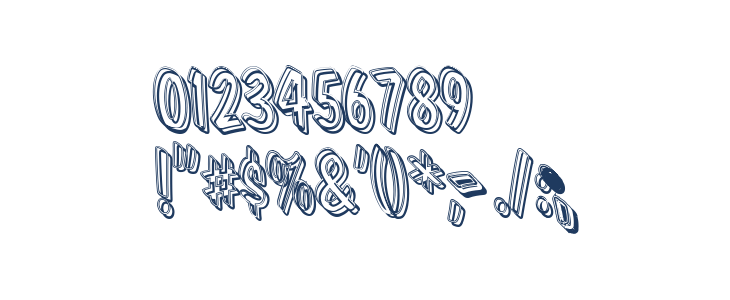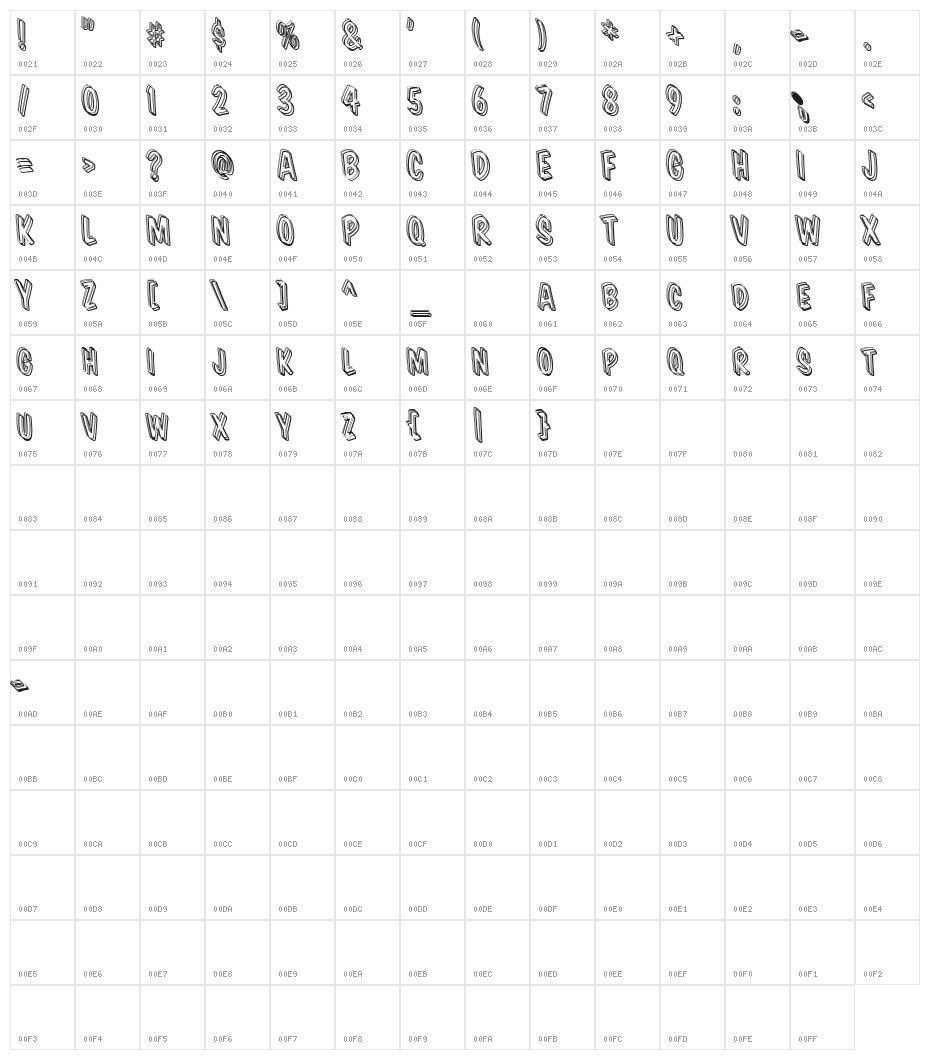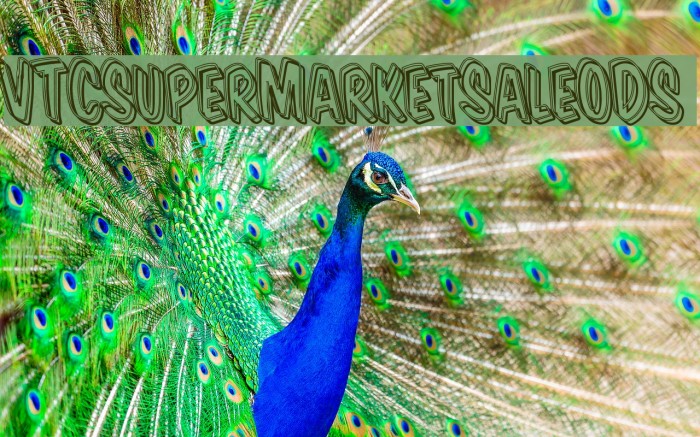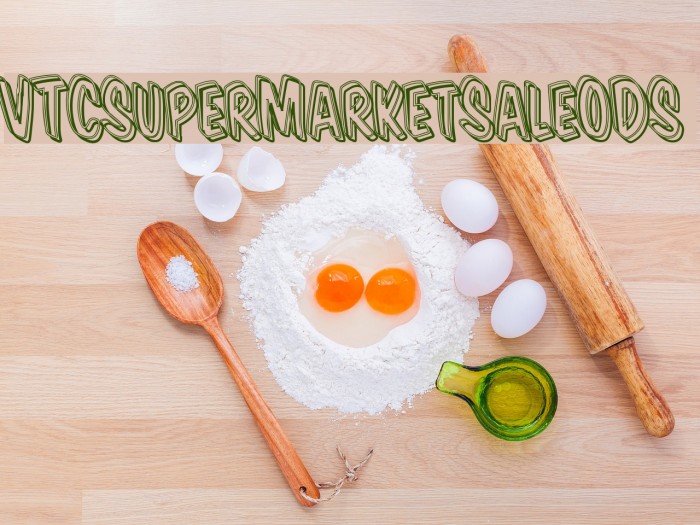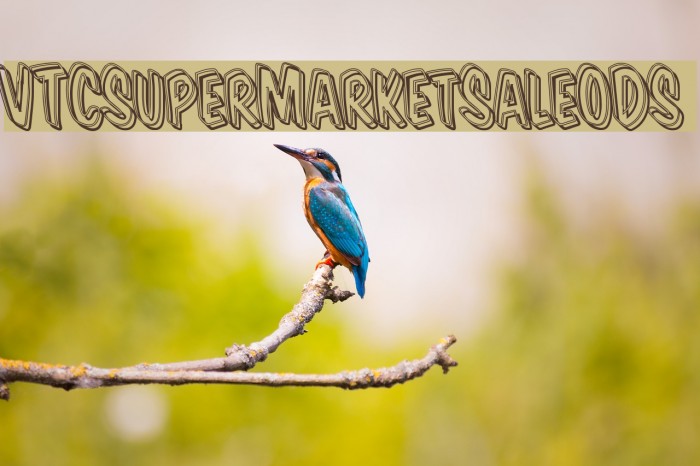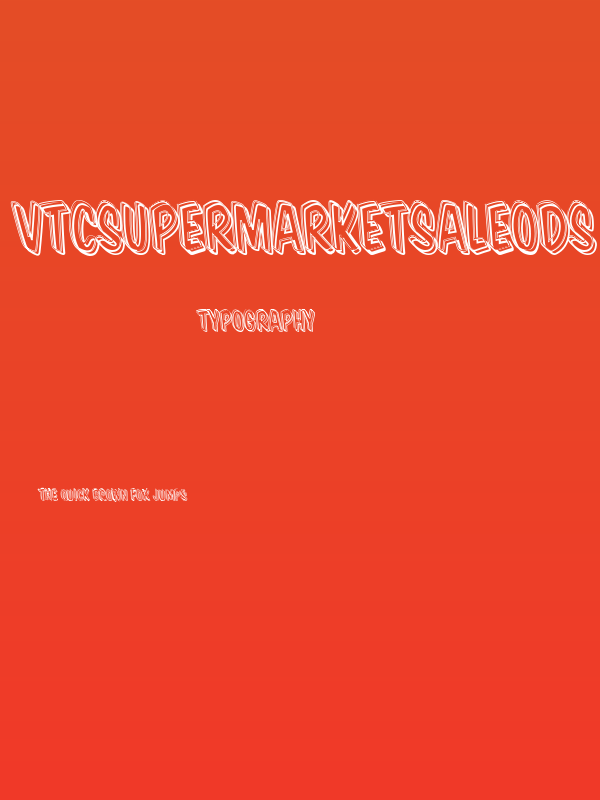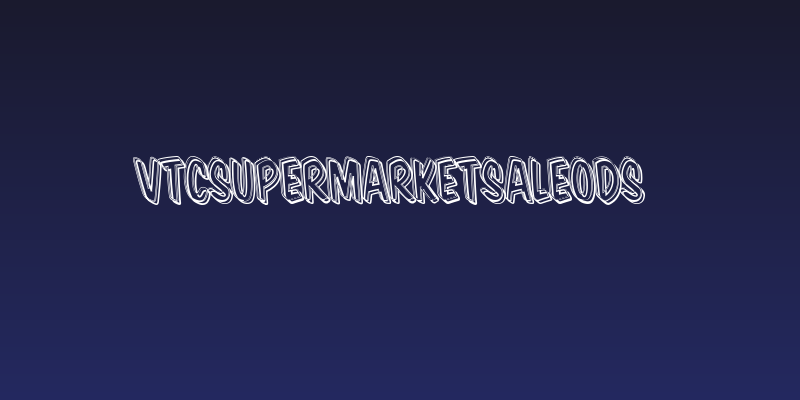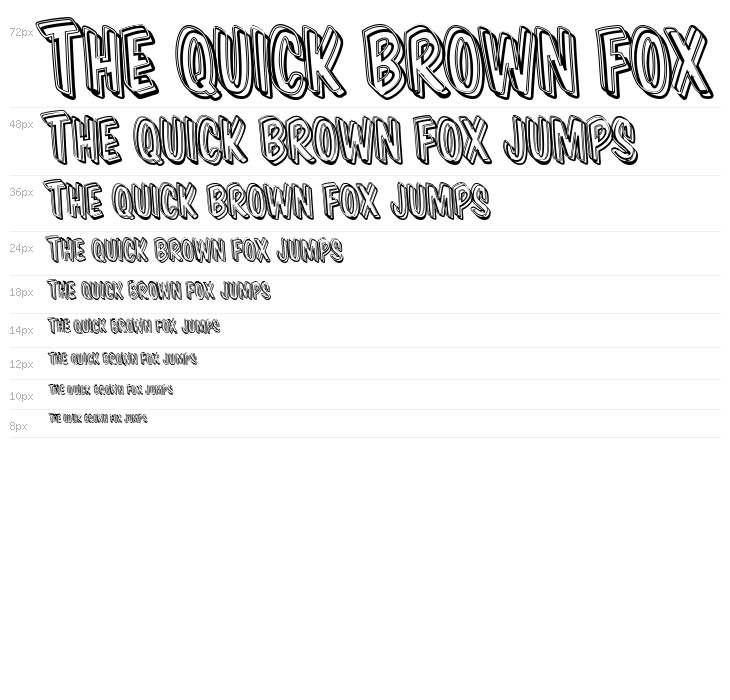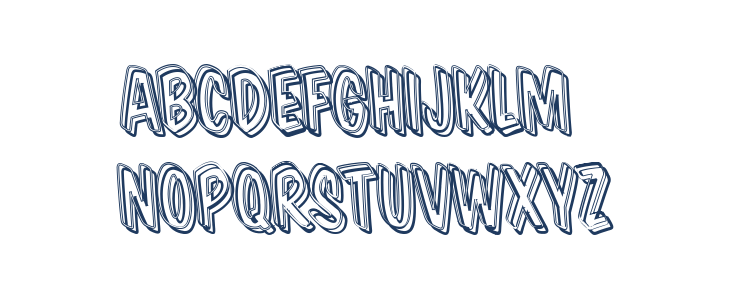
VTCSuperMarketSaleODS Font
VTCSuperMarketSaleODS Description
This font features a bold, playful style with a three-dimensional effect created by its outlined design. The letters are uppercase and have a thick, cartoonish appearance, making them highly visible and attention-grabbing. The strokes are consistent in width, with a slight slant that adds a dynamic feel. The characters are well-spaced, ensuring readability even at smaller sizes. The font includes a full set of uppercase letters, numbers, and a variety of special characters, making it versatile for different design needs.
| Overall Style | Playful, Cartoonish |
| Use Case | Headlines, Posters, Branding |
| Proposed Projects | Ideal for children's book covers, comic strips, playful branding, and promotional materials. |